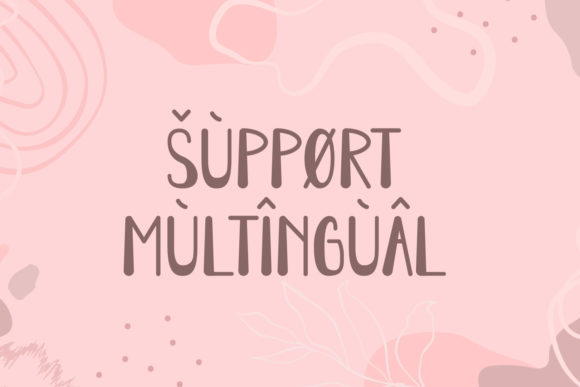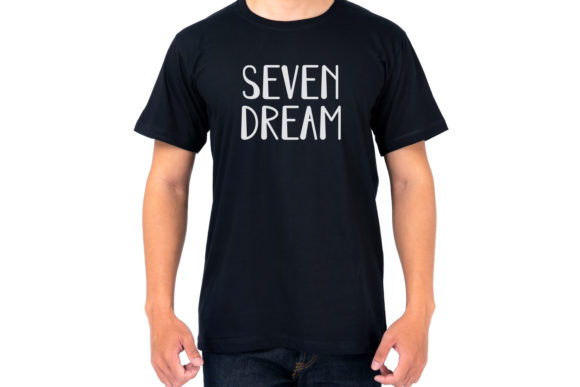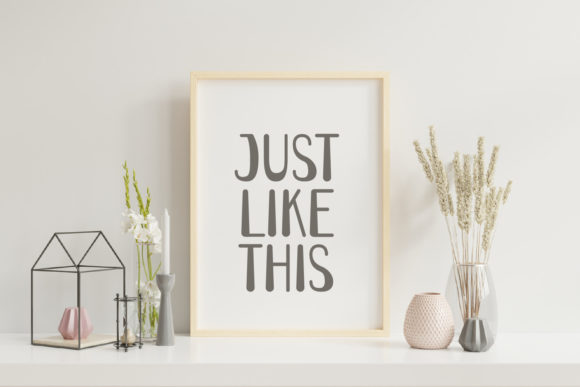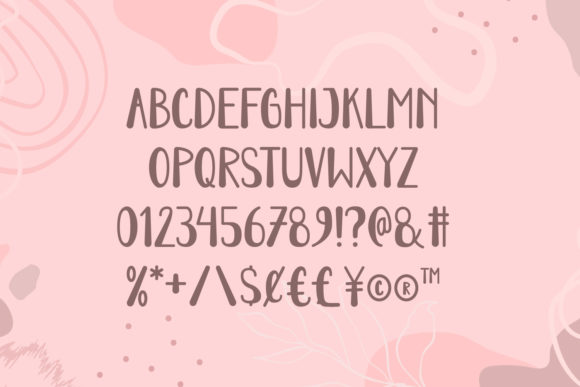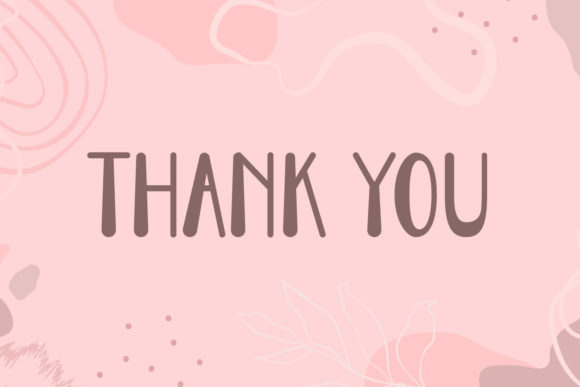
Dream Day Font: The Perfect Addition to Your Design Arsenal
Are you tired of using the same old fonts in your designs? Look no further than the Dream Day font, a quirky and cute display font that’s sure to take your creations to the next level. With its casual charm and down-to-earth vibe, this font is perfect for designers and crafters looking to add a touch of personality to their work.
What is Dream Day Font?
Dream Day font is a display font that’s designed to make a statement. Its unique and quirky style makes it perfect for use in a variety of design projects, from branding and advertising to packaging and signage. The font’s casual charm and easy-to-read design make it a versatile choice for designers who want to create beautiful and effective designs.
Key Features of Dream Day Font
- Quirky and Cute Design: The Dream Day font has a playful and charming design that’s sure to capture the attention of your audience.
- Casual Charm: The font’s casual vibe makes it perfect for use in designs that require a down-to-earth and approachable feel.
- Easy to Read: Despite its quirky design, the Dream Day font is easy to read, making it perfect for use in a variety of design projects.
- Versatile: The font’s versatility makes it perfect for use in a range of design projects, from branding and advertising to packaging and signage.
Why Use Dream Day Font?
So why should you use the Dream Day font in your designs? Here are just a few reasons:
- Adds Personality to Your Designs: The Dream Day font’s quirky and charming design adds a touch of personality to your designs, setting them apart from the competition.
- Perfect for Branding and Advertising: The font’s casual charm and easy-to-read design make it perfect for use in branding and advertising projects.
- Great for Crafters and Small Business Owners: The Dream Day font is a great choice for crafters and small business owners who want to create beautiful and effective designs without breaking the bank.
How to Use Dream Day Font
Using the Dream Day font in your designs is easy. Here are a few tips to get you started:
- Use it as a Display Font: The Dream Day font is perfect for use as a display font, making it great for headings and titles.
- Pair it with Other Fonts: The font’s versatility makes it easy to pair with other fonts, allowing you to create unique and effective designs.
- Experiment with Different Sizes and Colors: Don’t be afraid to experiment with different sizes and colors to find the perfect look for your design.
Here are a few tips and tricks to help you get the most out of the Dream Day font:
- Use it in Combination with Images: The Dream Day font looks great in combination with images, making it perfect for use in designs that require a visual element.
- Experiment with Different Effects: Don’t be afraid to experiment with different effects, such as bolding and italicizing, to add emphasis to your text.
- Use it to Create a Consistent Brand Identity: The Dream Day font is perfect for use in branding and advertising projects, making it a great choice for businesses looking to create a consistent brand identity.